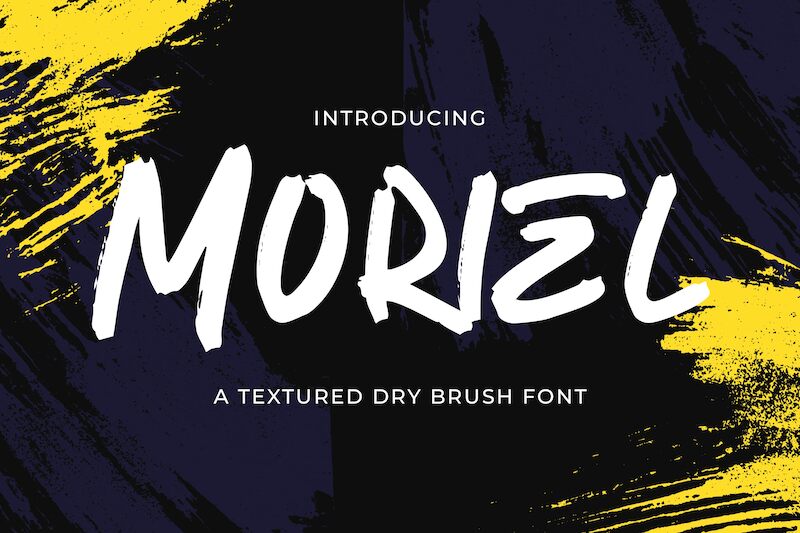
Moriel font family by StringLabs Creative Studio includes 2 font styles with expressive and unique hand-brushed characters. The font looks artistic and informal, with dynamic strokes and a textured appearance that perfectly emulates the one of ink on paper. Made with actual brushes and the right artistic touches, Moriel feels bold, impactful, and statement-making, making any typography instantly stand out from the rest.
Moriel is a must-have for design, branding, and advertising projects that need typography with character. Create logos, business cards, and signage for shops and businesses like coffee shops, art galleries, or hair salons. Design posters, invitations, or social media graphics. Even magazine covers and album covers can make good use of this impressive font.